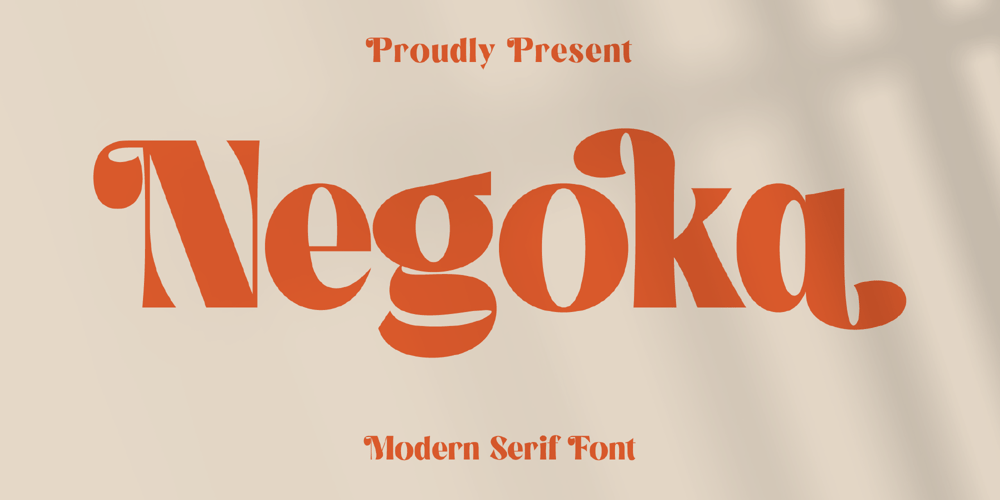
Negoka
Negoka font
Negoka Font Family was designed by Heru Utama Putra and published by Letterena Studios. Negoka contains 2 styles and family package options. Negoka is a cool and thick lettered display font. It is PUA encoded which means you can access all of the glyphs and swashes with ease! Add it confidently to your projects, and you will love the results.